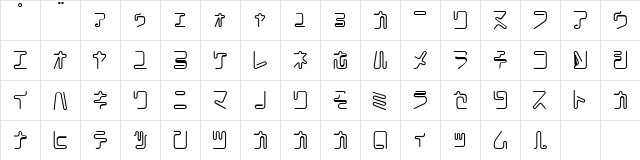
Coil Ktr Font Preview
Coil Ktr
Coil Ktr Font Details
| Style | Ktr |
Design Context for Coil Typeface
Coil is a composed and adaptable typeface that performs quietly and consistently across a wide range of design contexts.